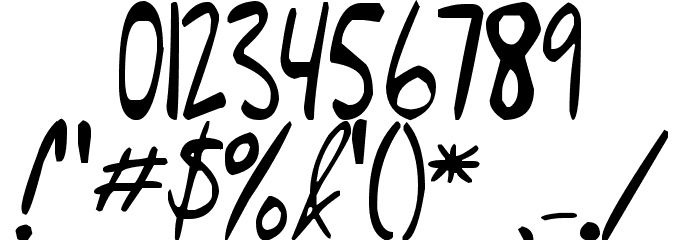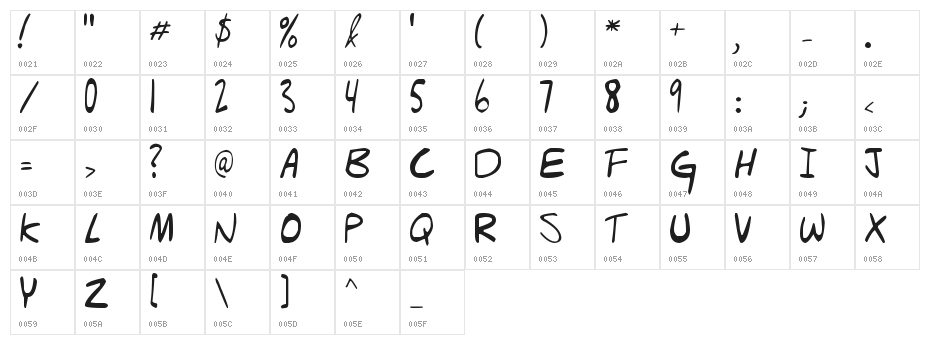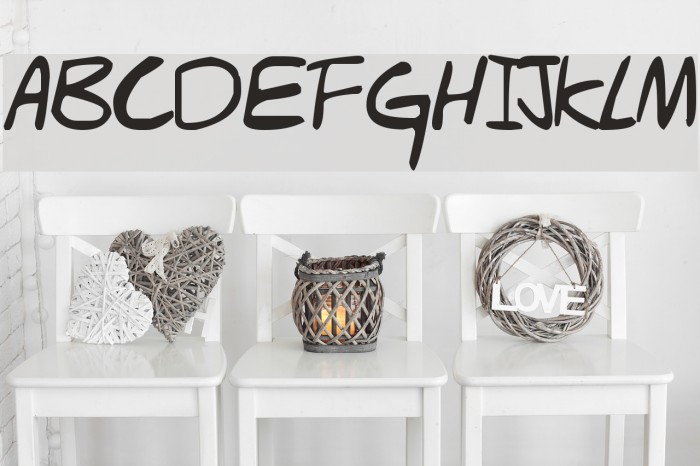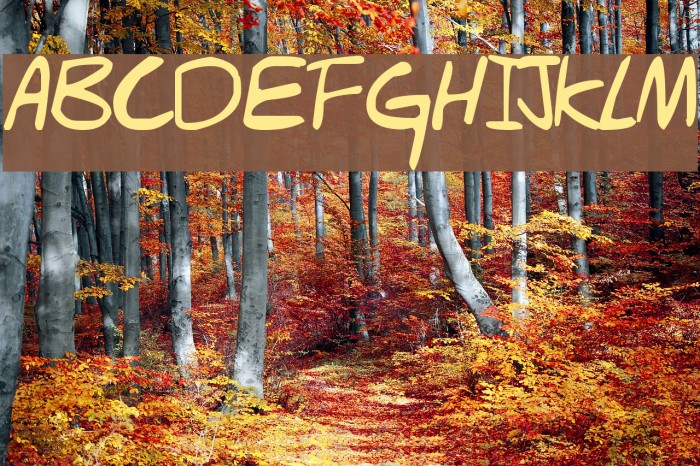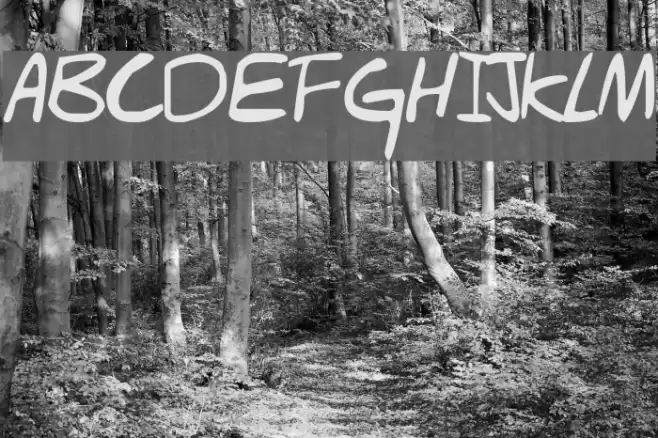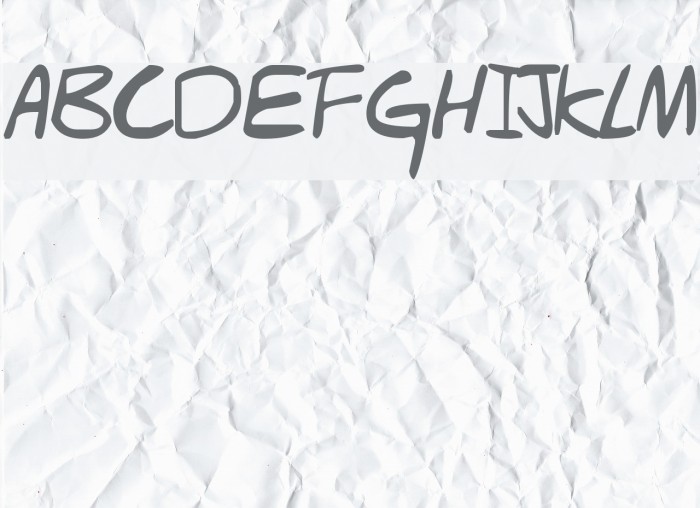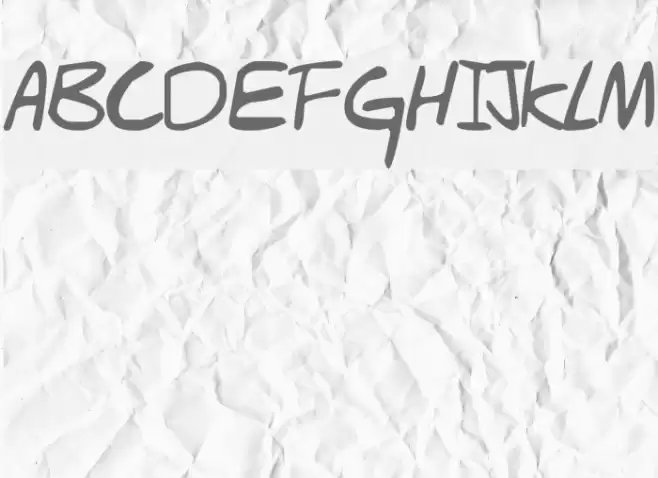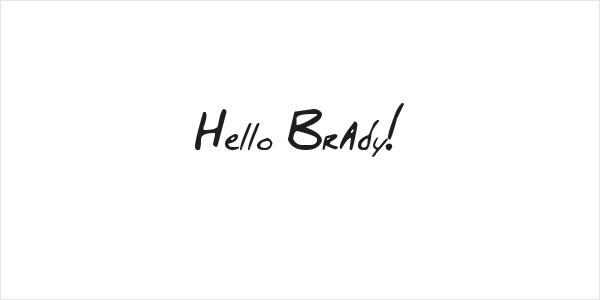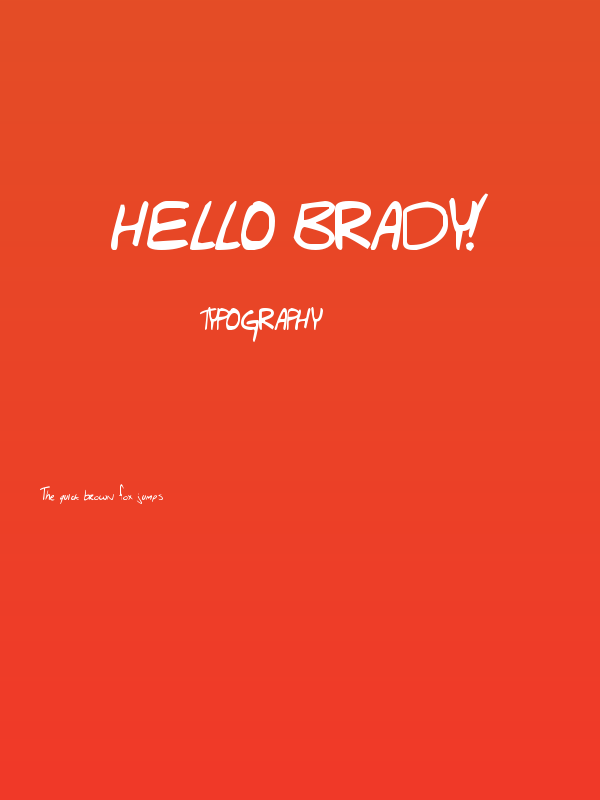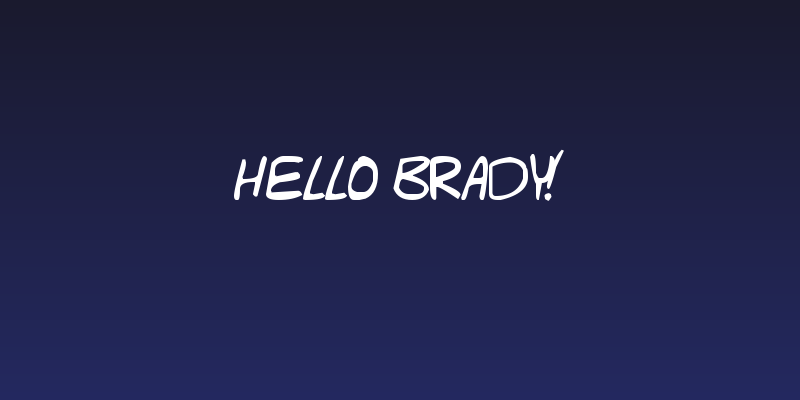
Hello Brady! Font
Hello Brady! Description
This font exhibits a playful and energetic handwritten style, characterized by its bold and dynamic strokes. The uppercase letters are slightly slanted, giving a sense of movement and spontaneity. The lowercase letters maintain a consistent flow, with some characters featuring unique loops and curves that add to the font's charm. The numbers are bold and clear, ensuring readability while maintaining the overall whimsical aesthetic. Special characters are creatively designed, fitting seamlessly with the rest of the font's style. This font's informal and lively appearance makes it suitable for projects that aim to convey a sense of fun and creativity.